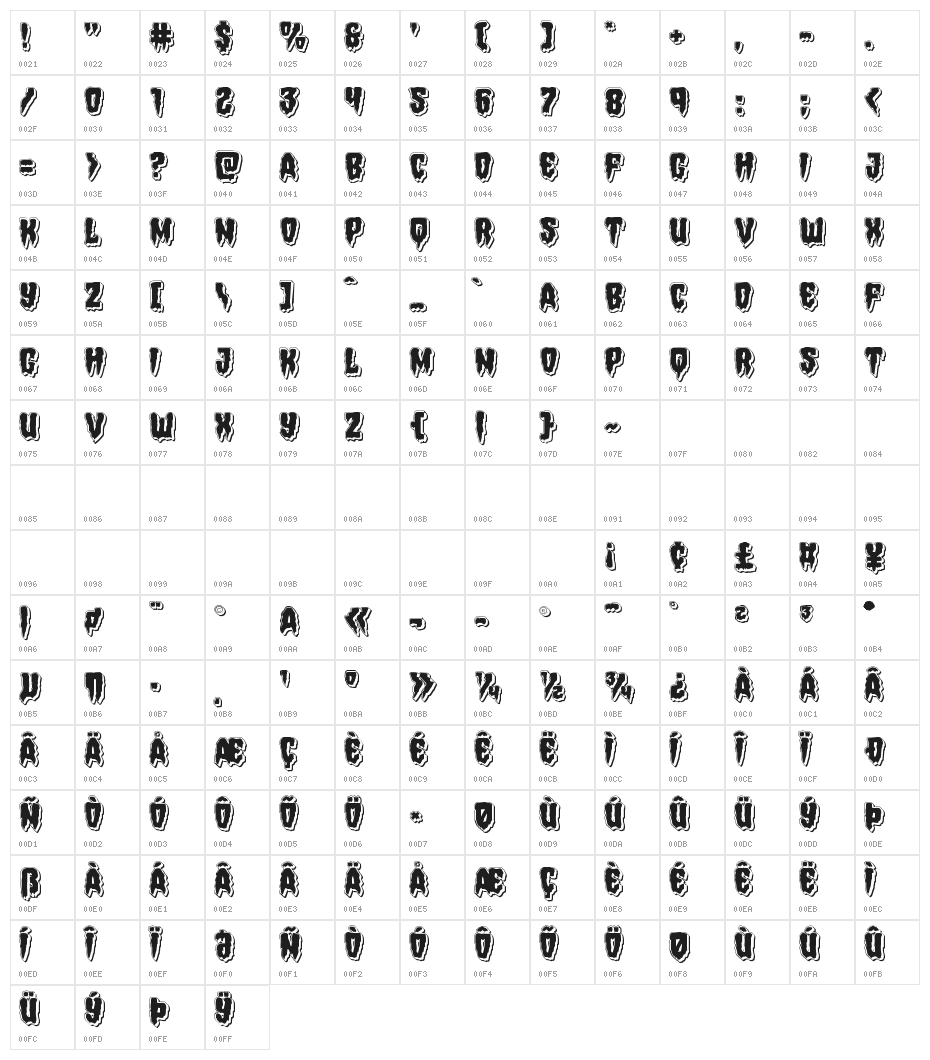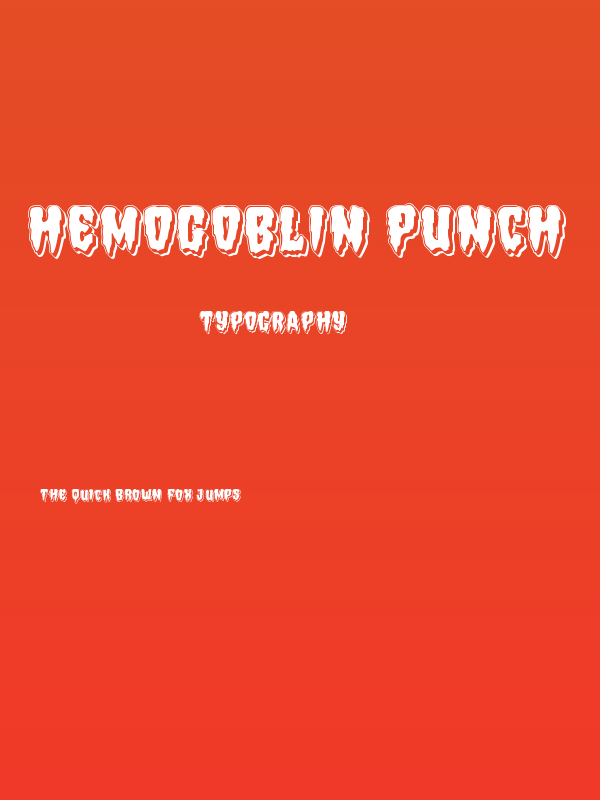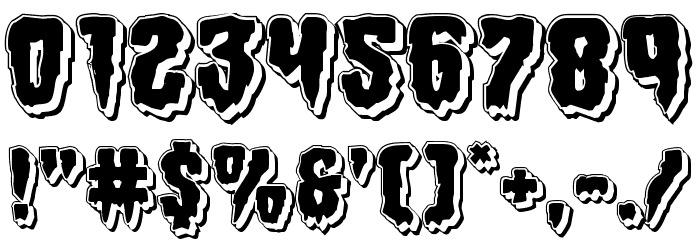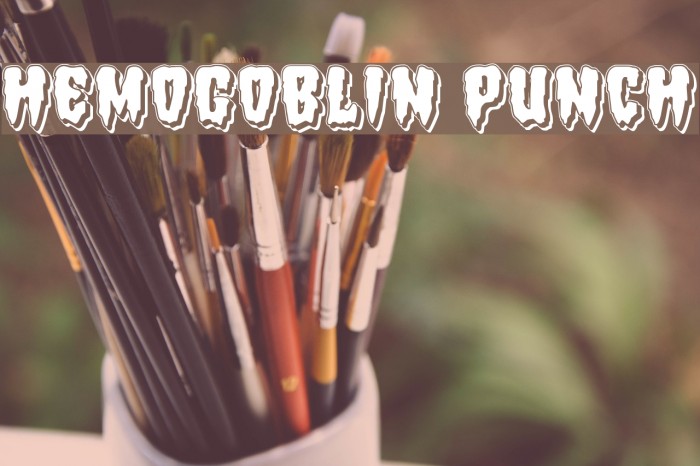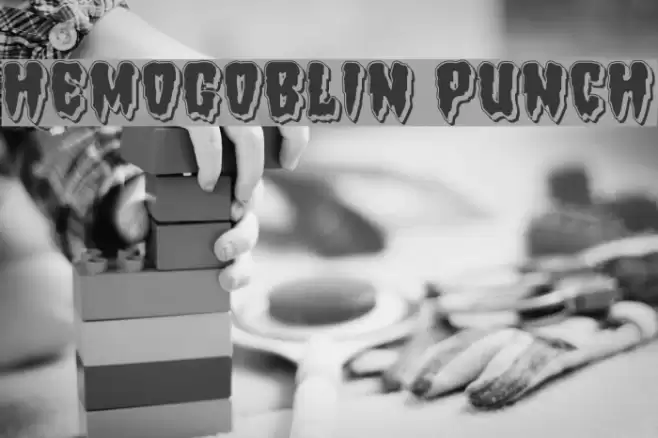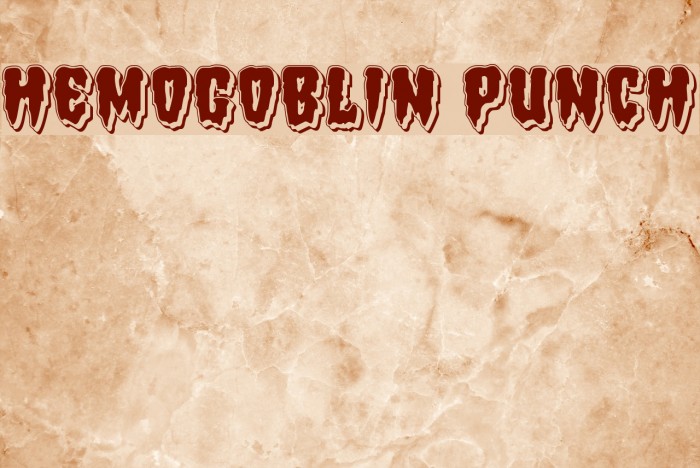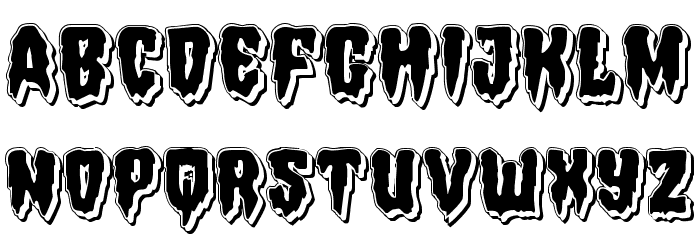
Hemogoblin Punch Font
Hemogoblin Punch Description
This font features a bold and dramatic style with a dripping, liquid-like effect that gives it a spooky and eerie appearance. The characters are heavily stylized with jagged edges and irregular shapes, reminiscent of horror or Halloween themes. The uppercase and lowercase letters maintain a consistent design, with each character appearing as if it is melting or oozing. The numbers and special characters follow the same aesthetic, ensuring a cohesive look across all glyphs. This font is perfect for creating eye-catching and thematic designs that require a touch of the macabre.
| Proposed Projects | Ideal for Halloween posters, horror movie titles, themed party invitations, and graphic novels. |